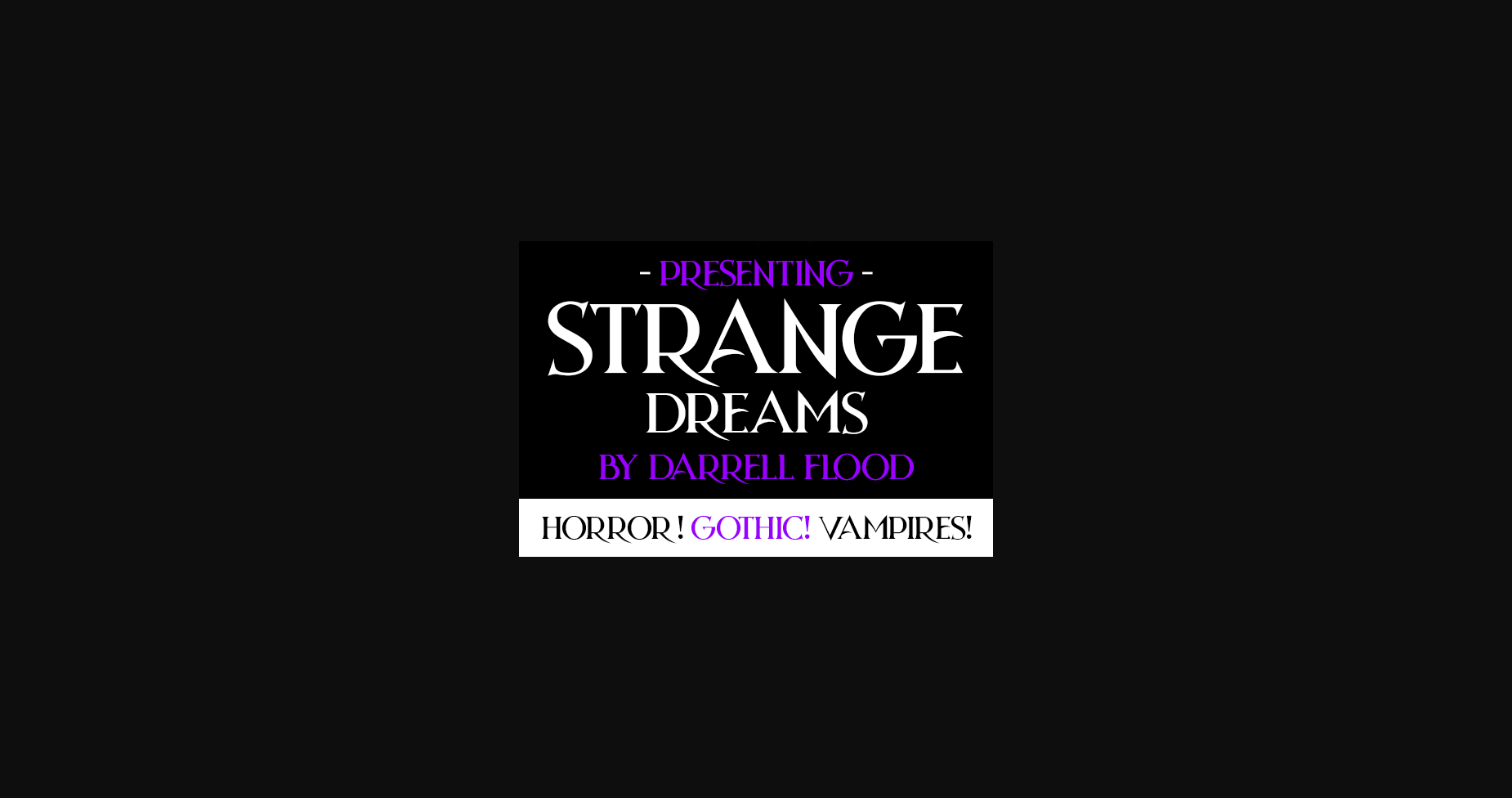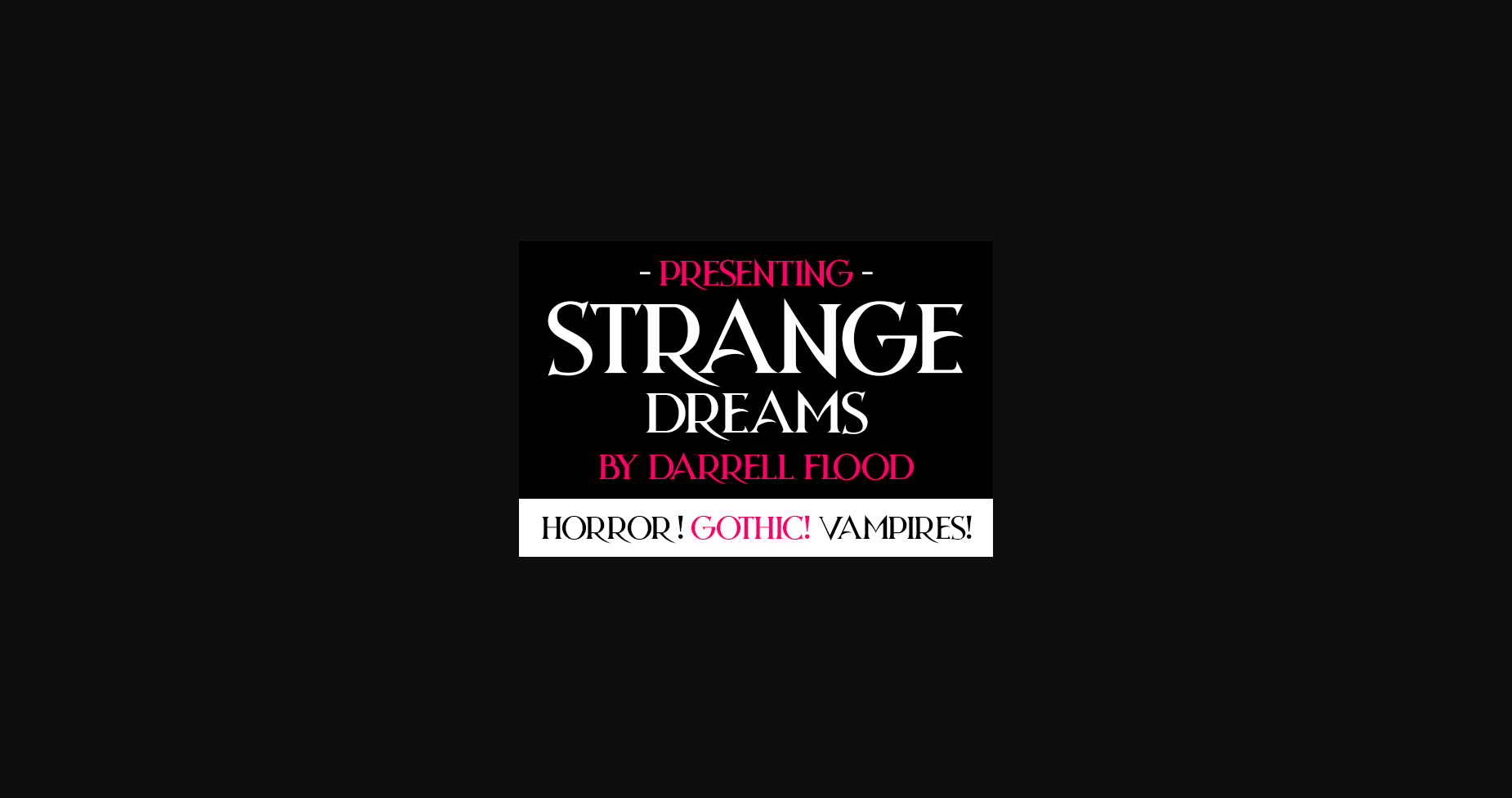
HomeSans Serif FontsStrange Dreams Font Sans Serif Fonts Strange Dreams Font FacebookXPinterestWhatsApp 1 of 4 ... Strange Dreams Font Poster 2... Strange Dreams Font Poster 3... Strange Dreams Font Poster 4... About Strange Dreams Font An expressive, stylish sans-serif, with elongated swoops and unusual curves. Perfect for gothic, horror, and Halloween themes! DOWNLOAD NOW People also explored Metta Dahlia Font Kid Story Font Haunted Witch Font Jessica Font The Qualities Font Tuesday Jingle Font Hatching Love Font Candlelight Font Zig Zagler Font 543 0 TagsStrange Dreams Font Previous articleHolkent FontNext articleOctavian Font LEAVE A REPLY Cancel reply Comment: Please enter your comment! Name:* Please enter your name here Email:* You have entered an incorrect email address! Please enter your email address here Website: Save my name, email, and website in this browser for the next time I comment. Personal Use Free Twisty Girlz Personal Use Free Read more about this font Befindisa Personal Use Free Read more about this font New System Personal Use Free Read more about this font Adelfa Personal Use Free Read more about this font BLOG How to Install and Use Fonts on Windows, macOS, and Web Projects How to Install and Use Fonts on Windows, macOS, and Web Projects Fonts are a crucial part of design and branding. Whether you’re designing a... Modern Sans-Serif Fonts That Brands Love in 2025 Transform Your Website: Elevate Your Typography with 7 Best Web Font Generators Free vs Paid Fonts: Why Investing in Premium Fonts Is Worth It